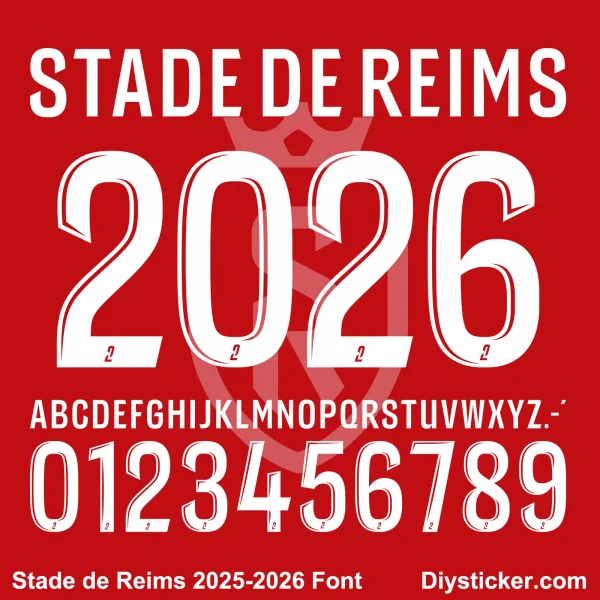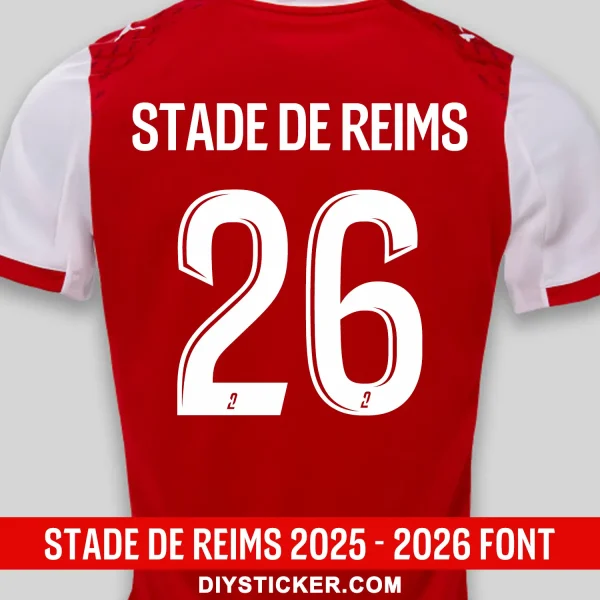
Stade de Reims 2025-2026 Font & Numbers Vector Kit: Premium French Football Lettering
Bring authentic Ligue 1 design accuracy to your garment manufacturing queue with our high-fidelity Stade de Reims 2025-2026 font and player numbering toolkit. This digital reproduction asset replicates the sleek, elegant visual identity worn by the club throughout their domestic campaign. Whether you are cutting a singular player name-set or scaling layouts for commercial retail distribution, our vector channels ensure premium accuracy down to the anchor node. Diversify your athletic font library further by checking out our complete selection in the Football Club Fonts category index.
Design Aesthetics & Typographic Geometry
The Stade de Reims 2025-2026 font is a masterful blend of vintage French athletic heritage and sleek digital modernization. Key visual components include:
Fluid Arched Inner Silhouette Lines: The numbers are detailed with an elegant, crescent-like inner cut line that flows naturally along the character curves, giving the lettering kit a high-end, dynamic presence.
Elongated Condensed Proportions: Designed with narrow, vertical proportions, maximizing space on the jersey back while preserving sharp legibility under stadium lights.
Miniature Baseline Branding Integration: The bottom baseline of every single numeral features a crisp, embedded miniature number silhouette or team-specific asset placement for ultimate replica authenticity.